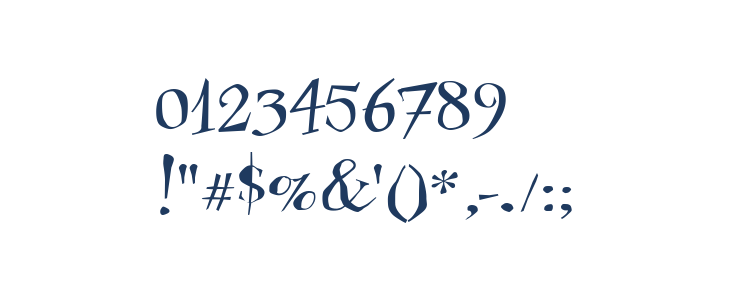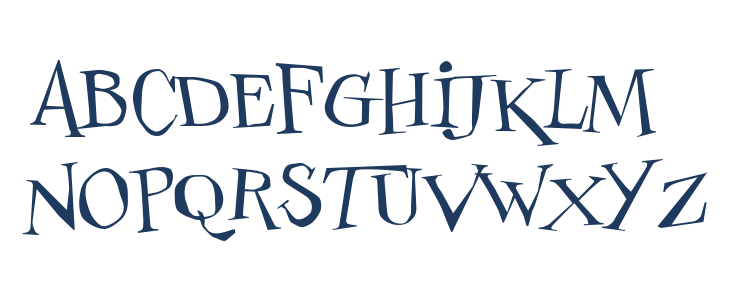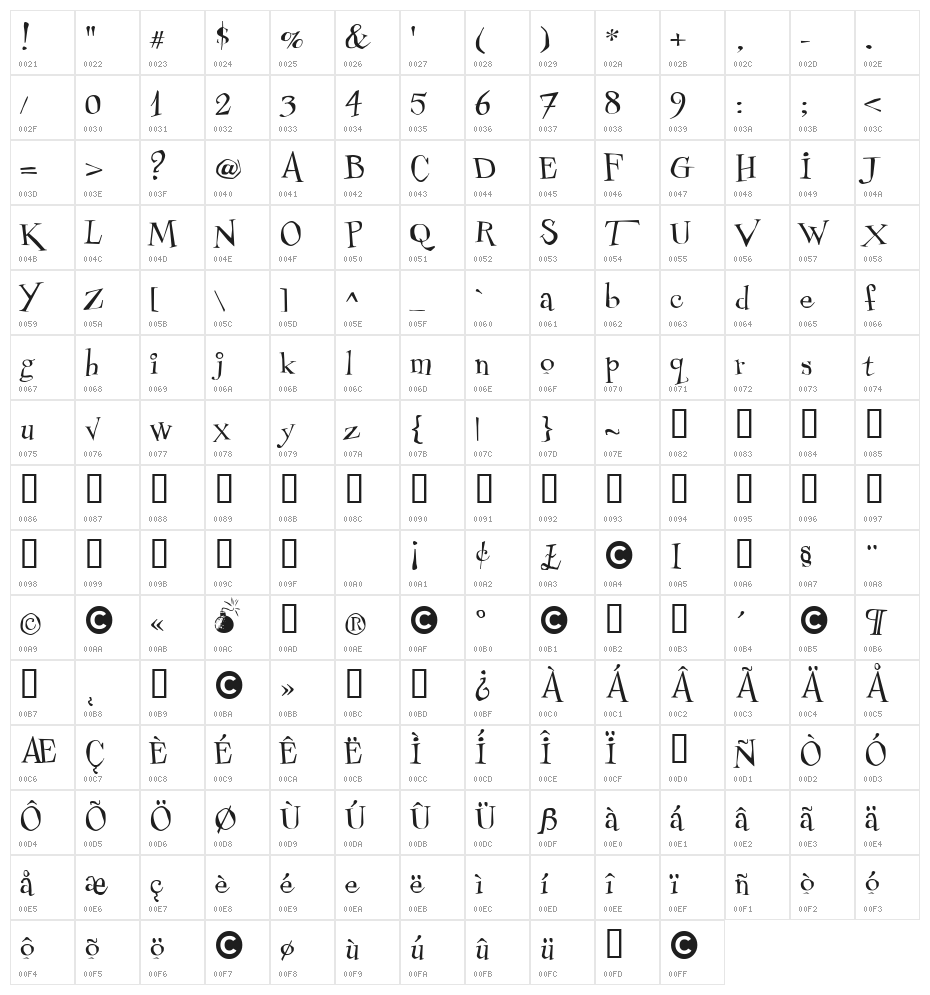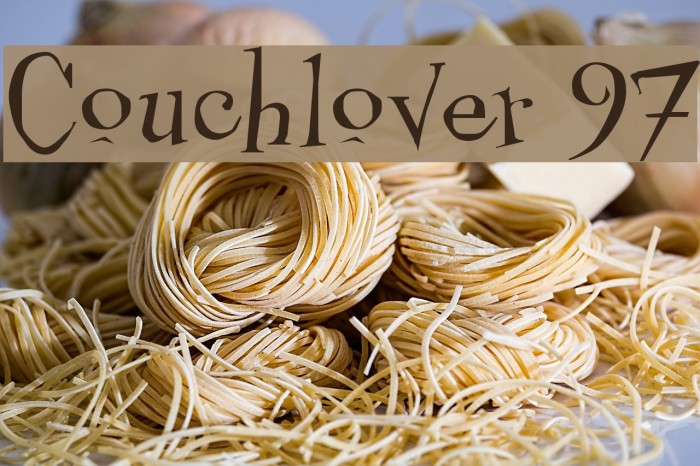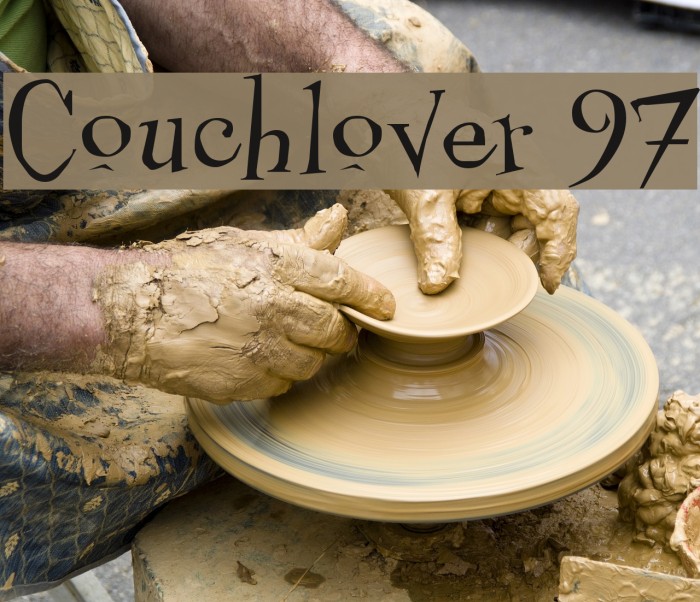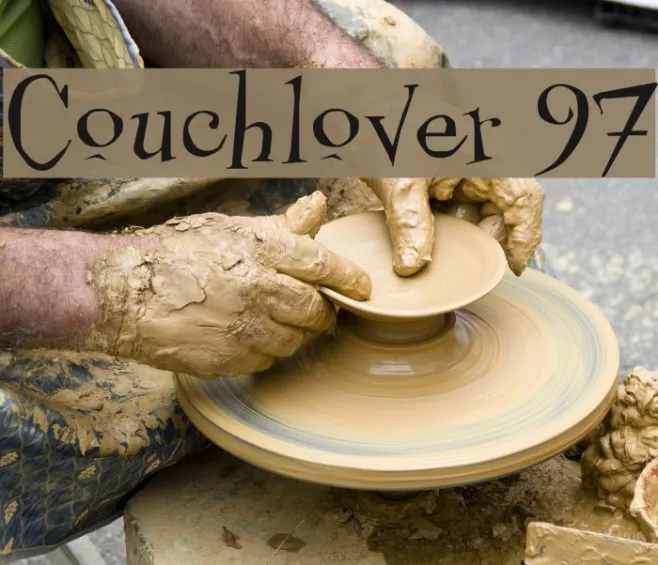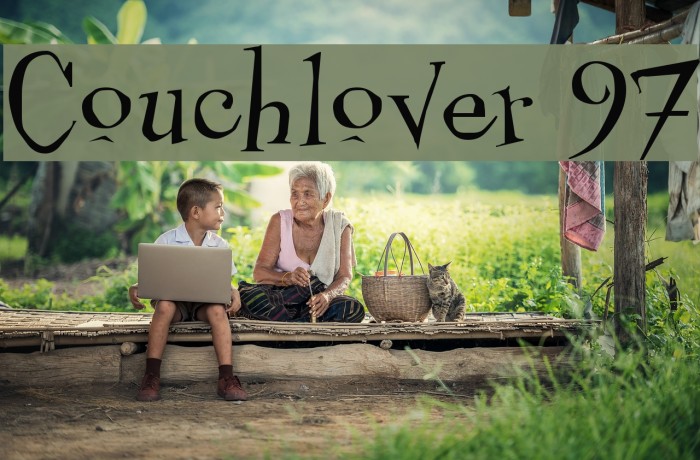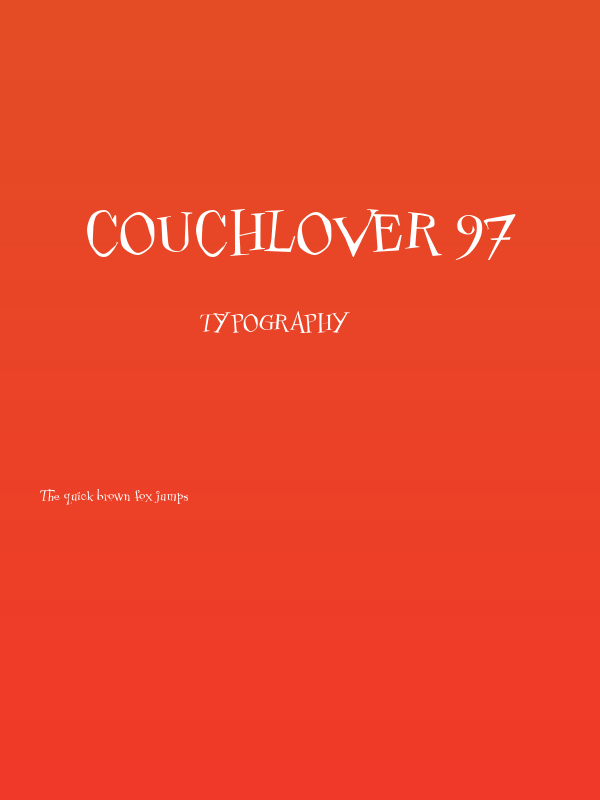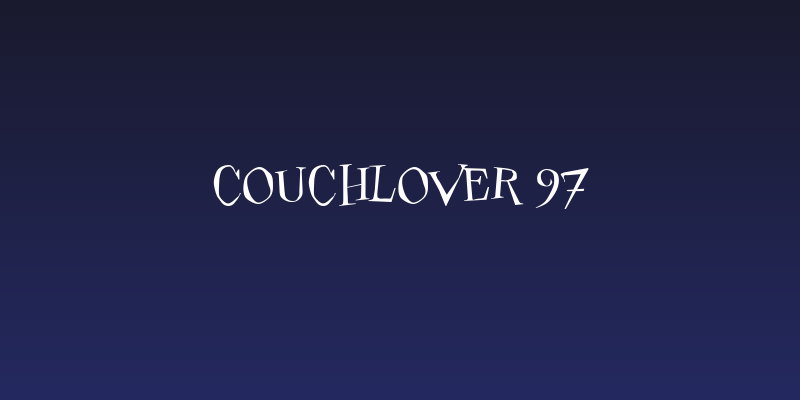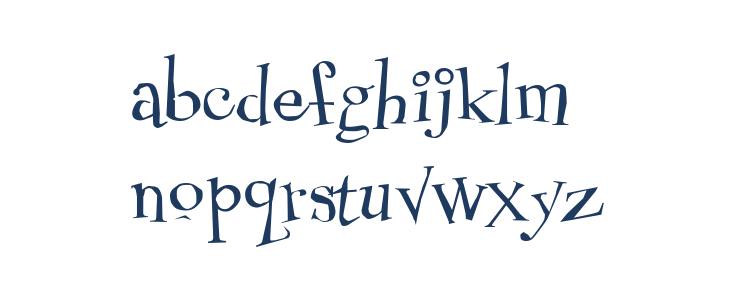
Couchlover 97 Font
Couchlover 97 Description
This font features a whimsical and playful design, characterized by its uneven strokes and slightly irregular shapes. The uppercase letters exhibit a dynamic flair, with varying stroke widths that add a sense of movement and energy. The lowercase letters maintain this playful style, with some characters having unique embellishments, such as loops and curls. The numerals are consistent with the overall style, offering a quirky and artistic touch. Special characters are creatively designed, enhancing the font's decorative appeal. This font is ideal for projects that require a fun and informal tone.
| Proposed Projects | Perfect for children's books, playful branding, party invitations, and creative posters. |